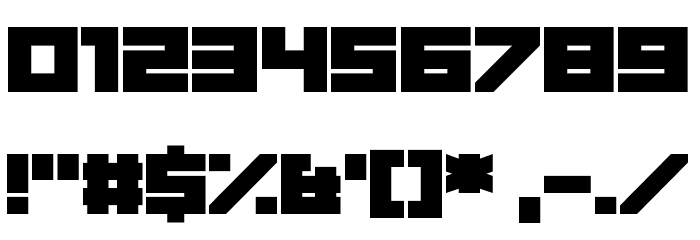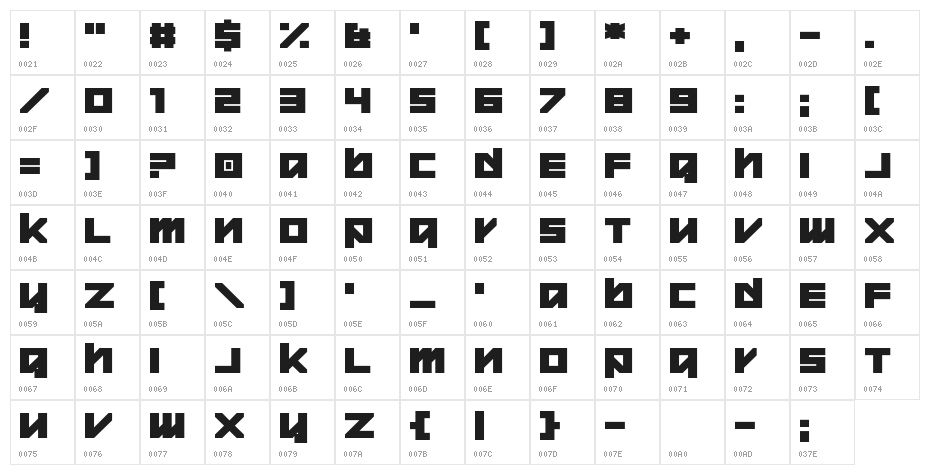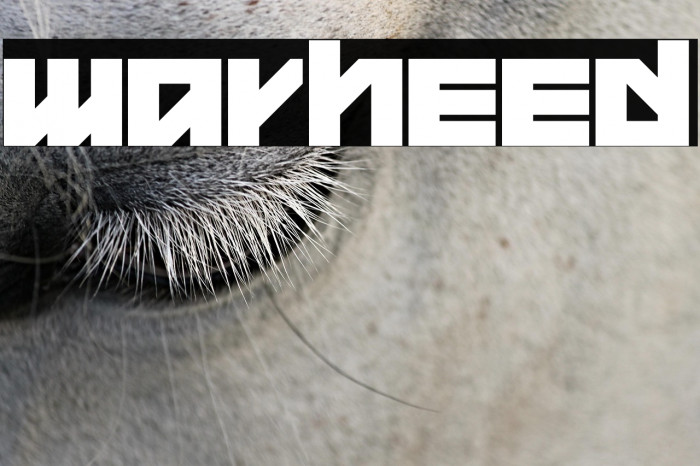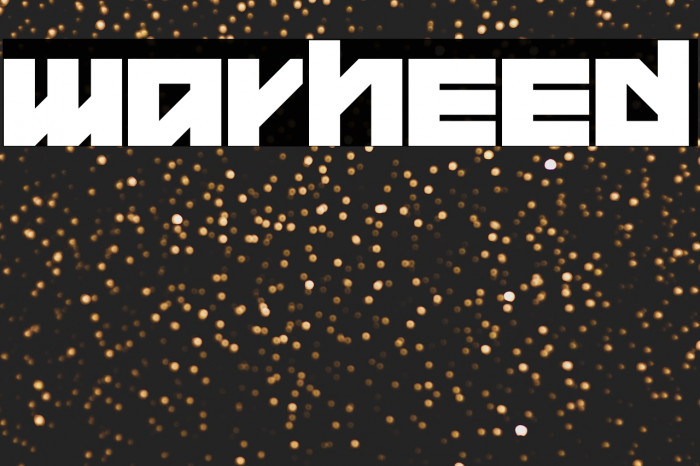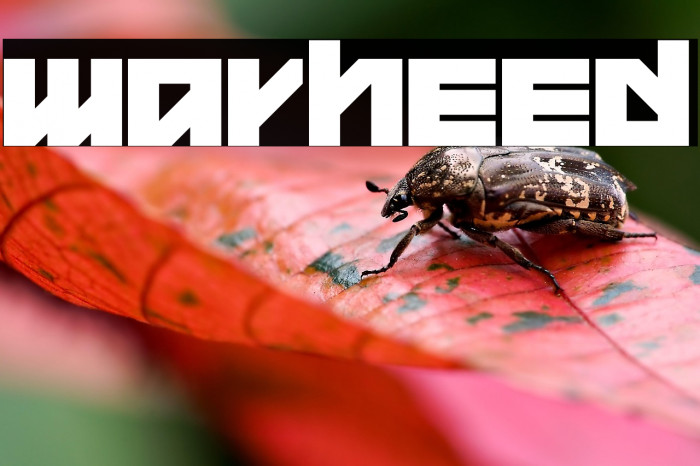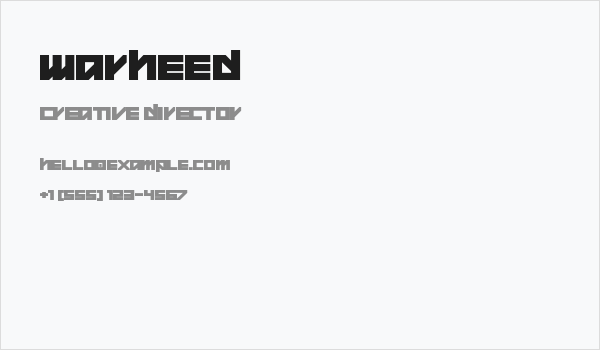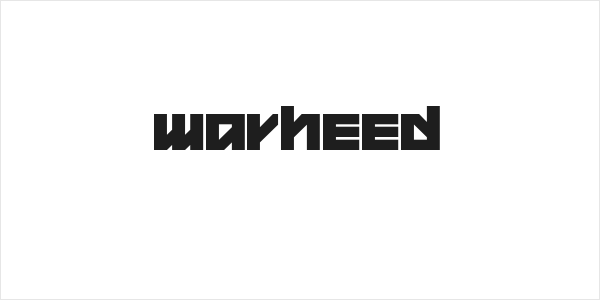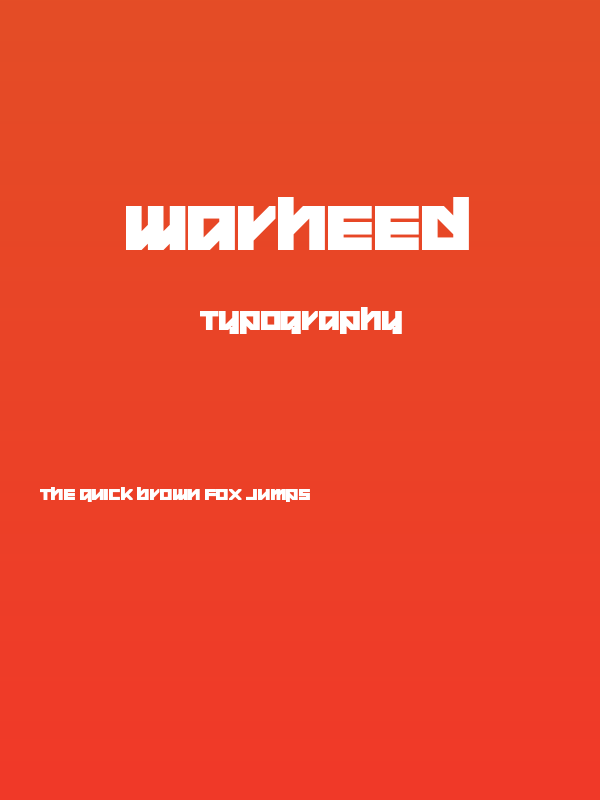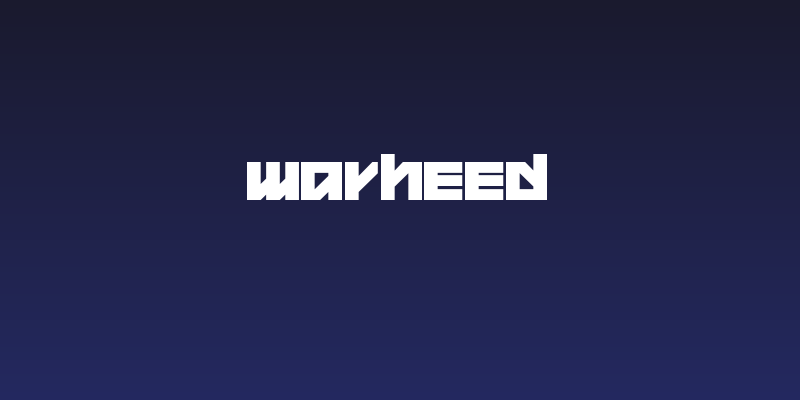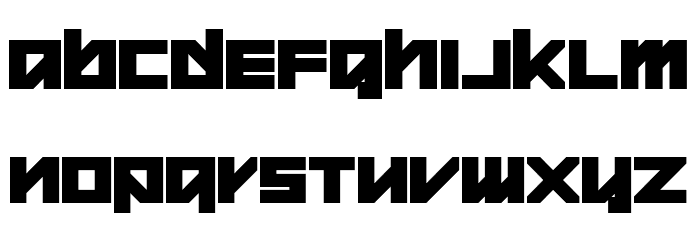
Warheed Font
Warheed Description
This font features a bold, geometric design with a strong, angular aesthetic. Each character is constructed with sharp edges and a blocky form, creating a futuristic and industrial feel. The uppercase and lowercase letters maintain a consistent style, emphasizing uniformity and strength. The numbers and special characters follow the same design principles, ensuring a cohesive look across all elements. The font's solid structure and distinct appearance make it highly suitable for impactful visual statements.